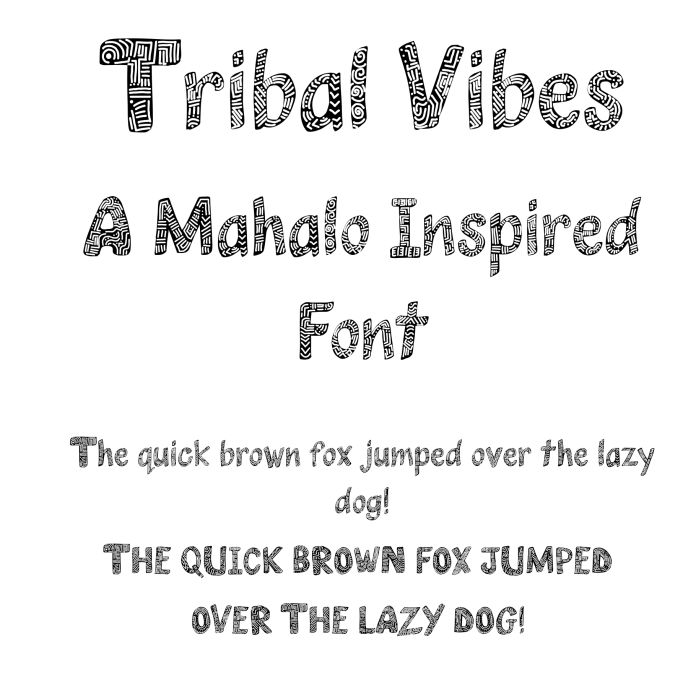
Get ready to feel the island spirit with Tribal Vibes, a unique and hand-drawn font inspired by the modern Polynesian tattoo style. This exotic font is crafted with love and admiration for the rich cultural heritage of the Pacific Islands. Crafted with heart in my rendition of the tribal symbols and arts. What are you waiting for? Download Tribal Vibes today and experience the unique charm of this exquisite font!